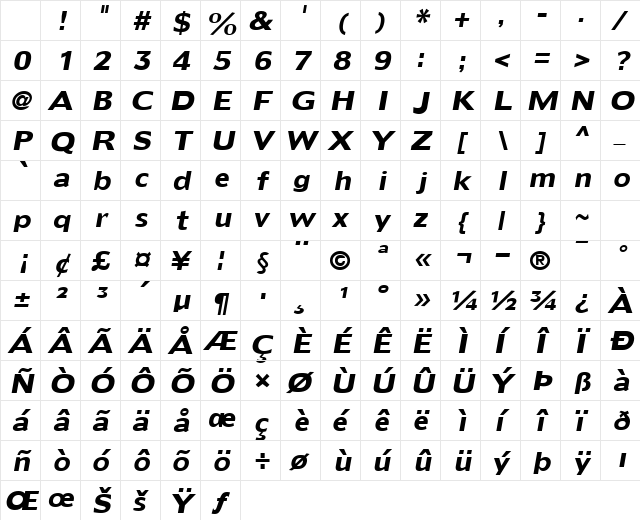
Doric is a composed and adaptable typeface that performs quietly and consistently across a wide range of design contexts. The slanted form adds forward momentum and visual energy.